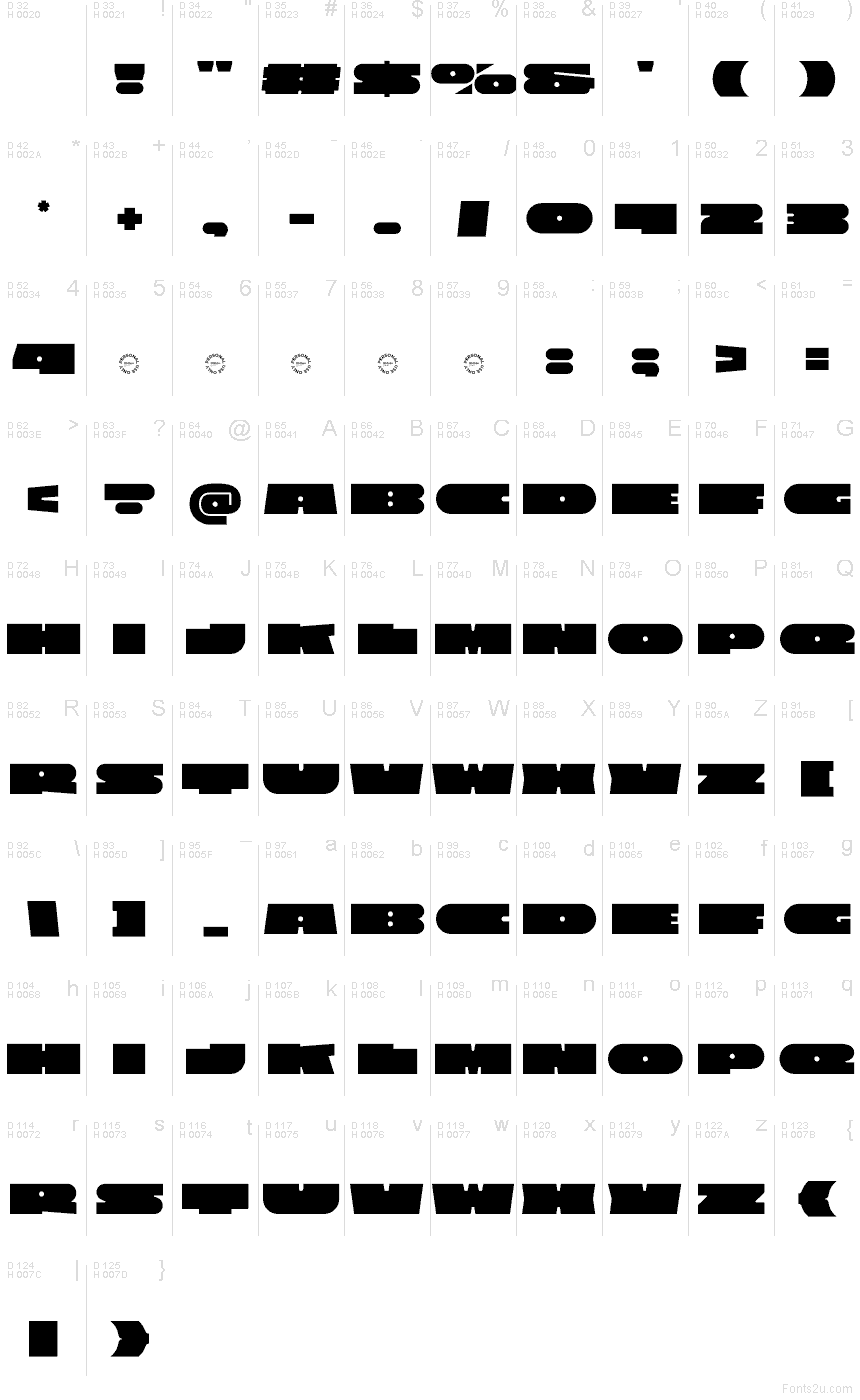
Bigtro by Limitype is a free futuristic display font built from massive, tightly fitted block forms. Broad curves meet severe right angles, and the near-solid letter shapes create a dense, industrial silhouette with a few small openings cut into the strokes.
Technology and competitive sports are convincing subjects for this forceful lettering. It could frame game title cards, esports merchandise, or electronic music posters, where its compressed shapes resemble machine parts and interface panels. For a streetwear label or gaming brand, the lettering can become a compact emblem rather than ordinary type.